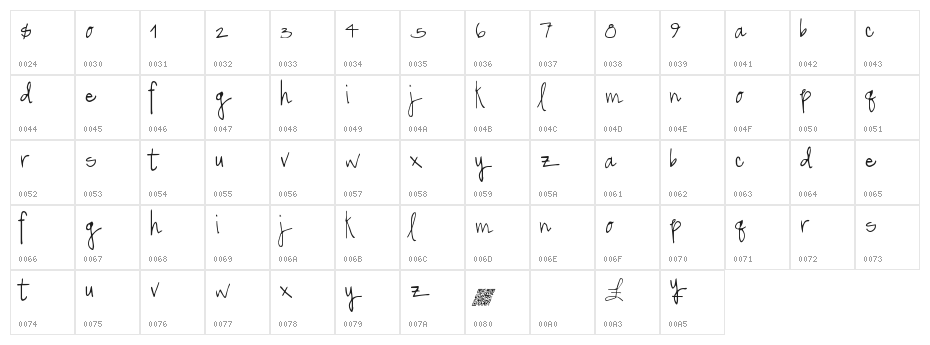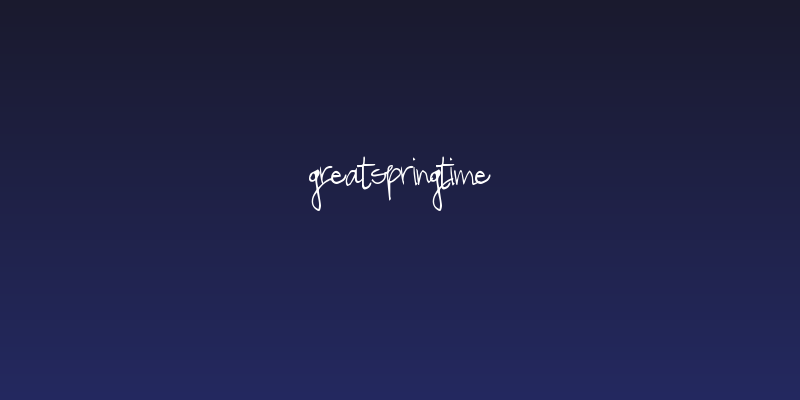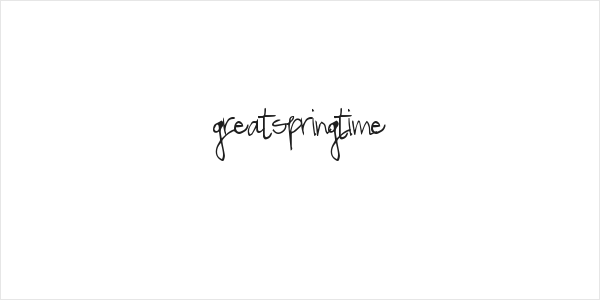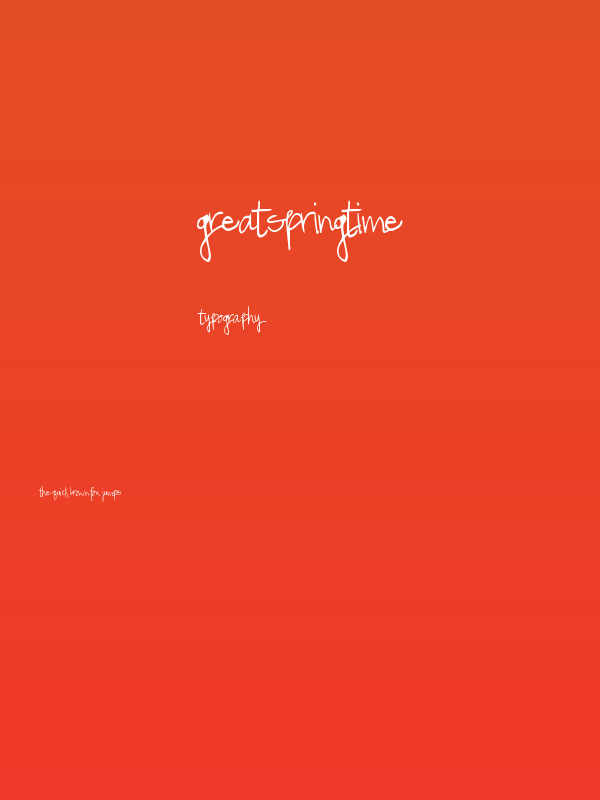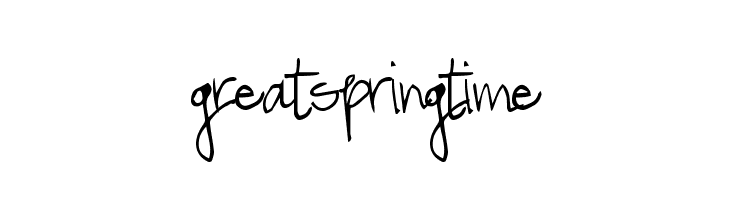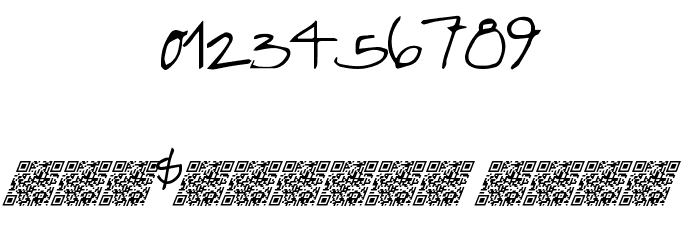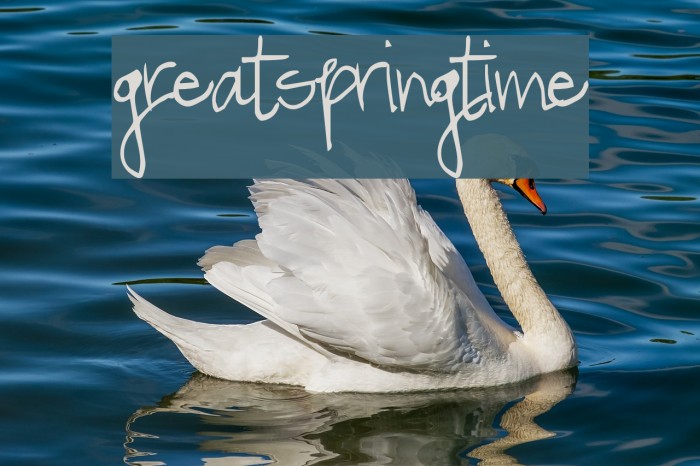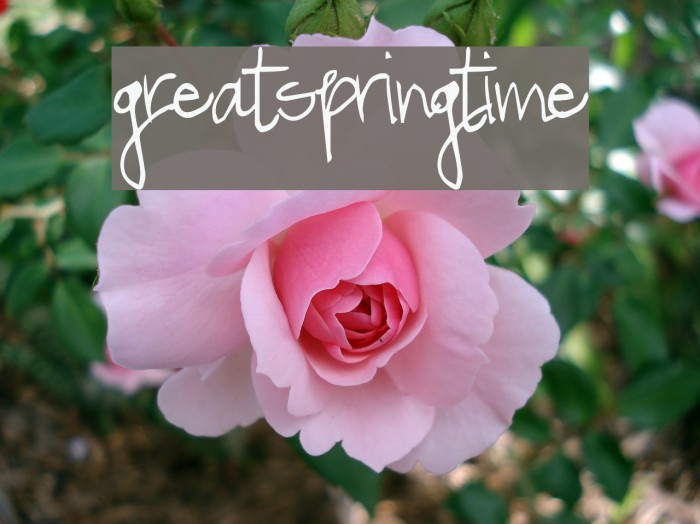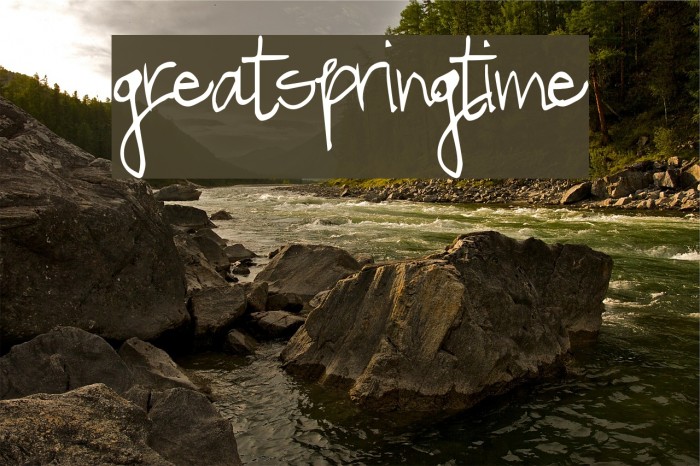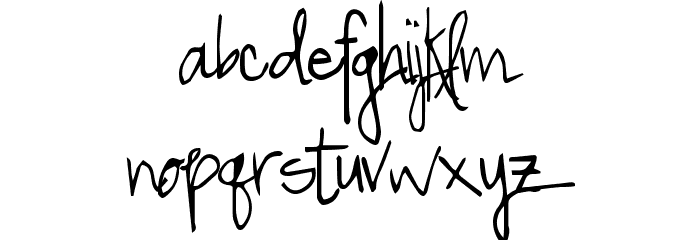
This font features a playful, handwritten style with a casual and informal appearance. The letters are characterized by their fluid, connected strokes, giving the impression of being written with a pen or brush. The uppercase and lowercase letters maintain a consistent style, with some letters having unique flourishes that add to the font's charm. The numbers and special characters are designed to match the overall aesthetic, ensuring a cohesive look across all text. This font's organic feel makes it suitable for projects that require a personal touch.
| Proposed Projects | Ideal for greeting cards, invitations, personal branding, and creative projects that require a personal touch. |